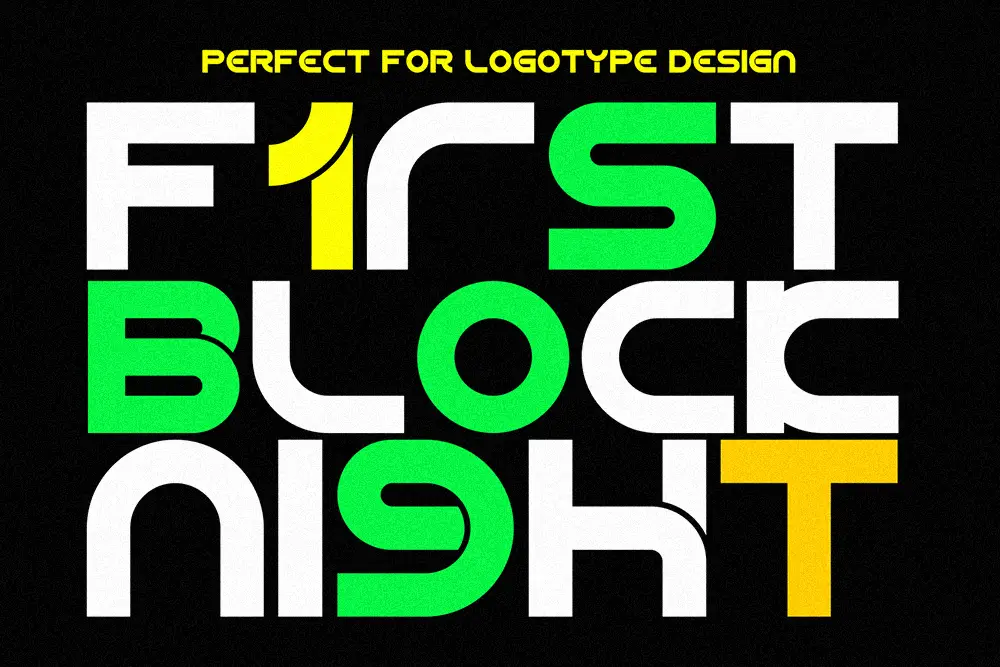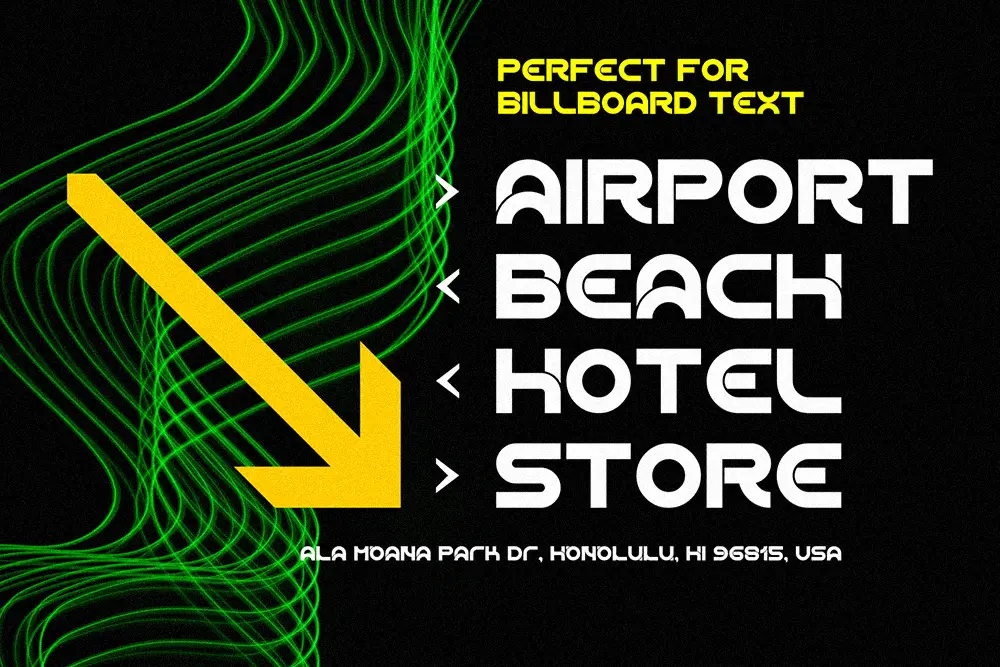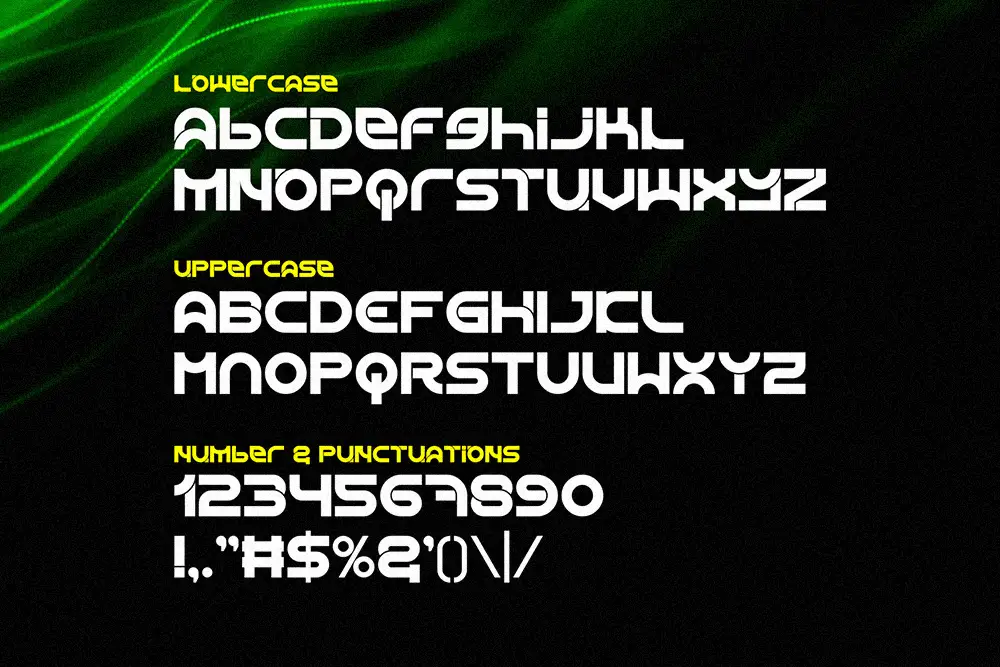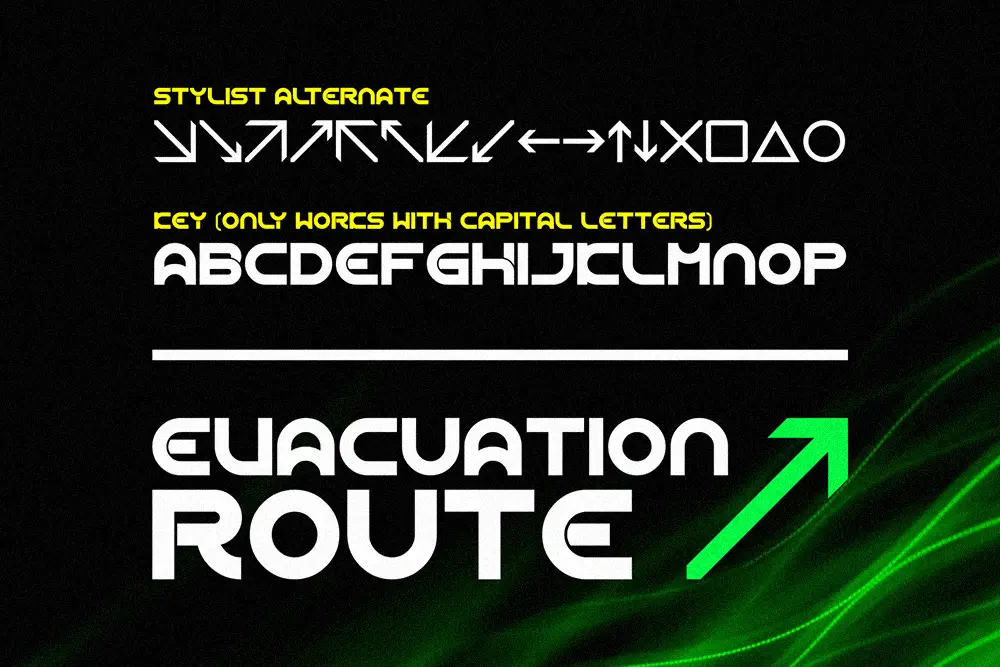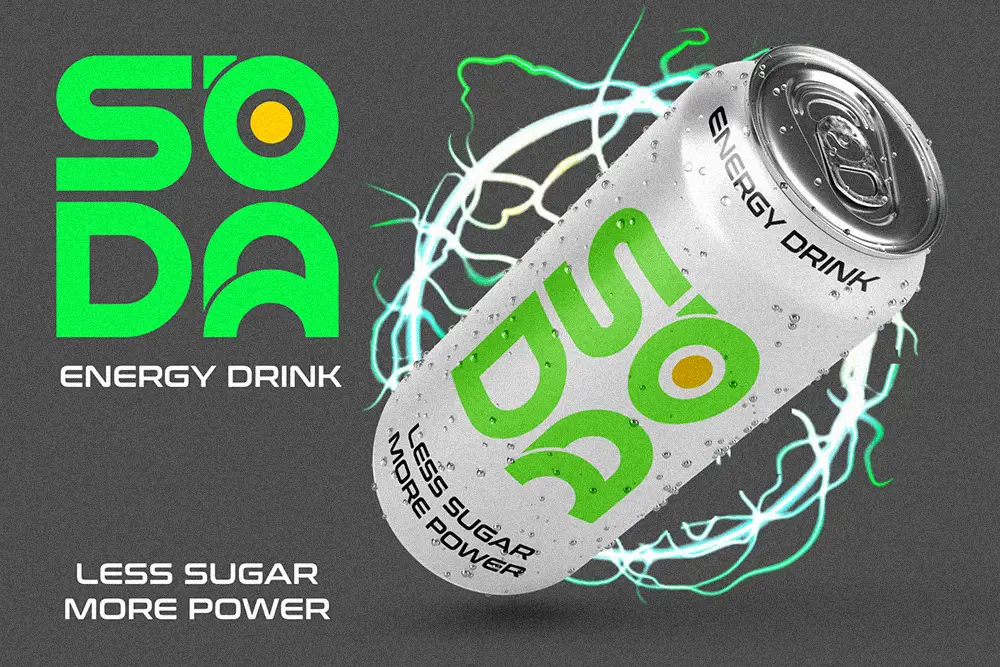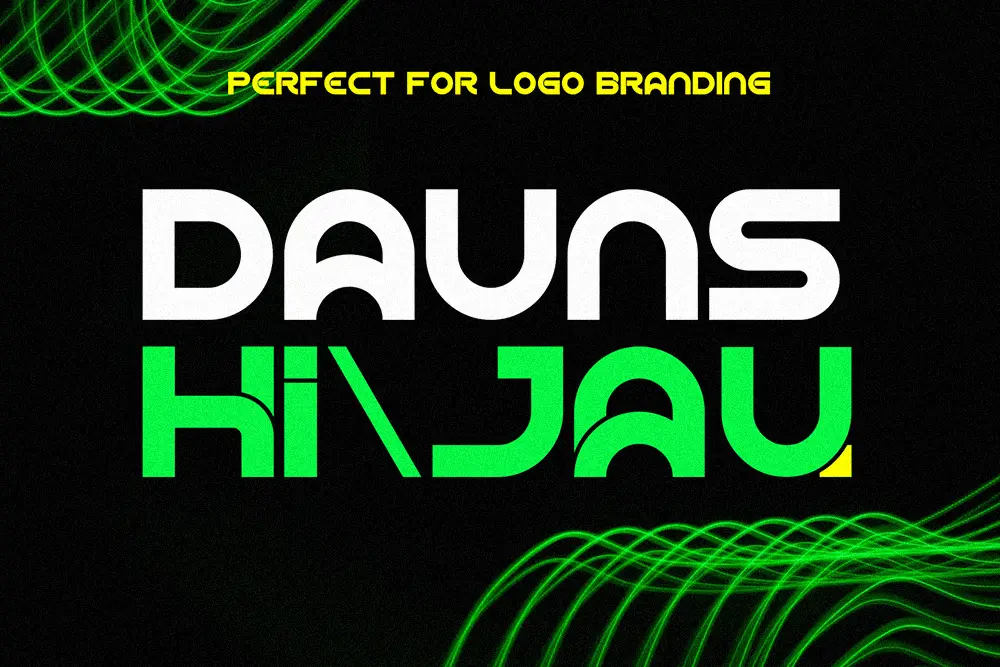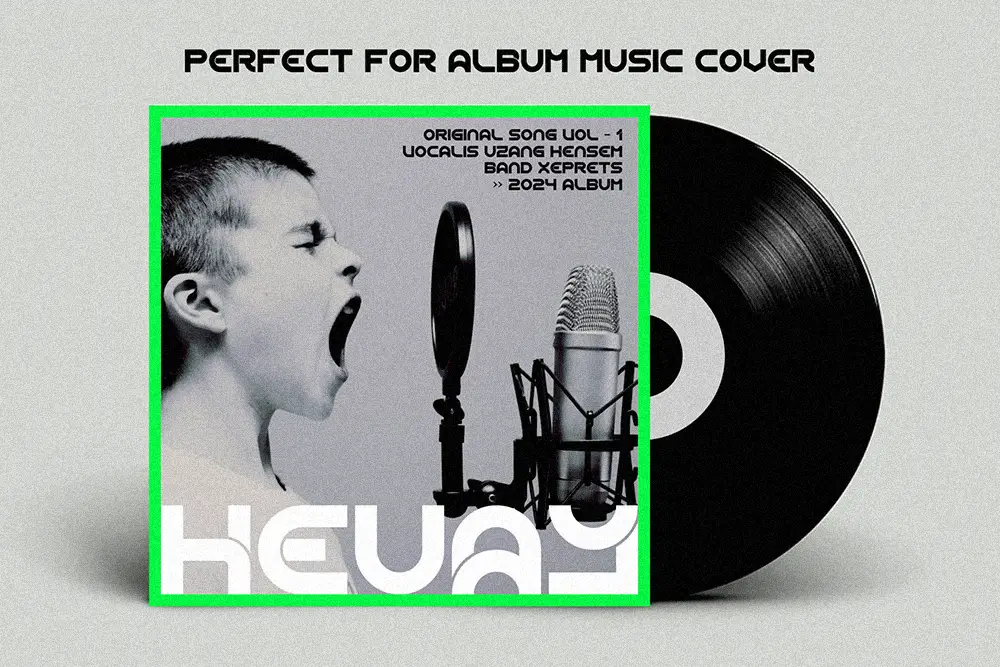
Tronical Elyps – Futuristic Techno Font for Modern Digital Design
Typography shapes the way we experience the future of design, and nothing captures modern innovation better than a futuristic techno font. Tronical Elyps – Futuristic Techno Font is crafted with bold geometric precision, smooth curves, and futuristic edges, making it perfect for logos, posters, branding, and digital interfaces.
This futuristic techno font doesn’t just look modern—it communicates the energy of technology, speed, and progress. Whether you’re building a tech startup identity, esports visuals, sci-fi posters, or futuristic packaging, Tronical Elyps ensures your design feels advanced and ready for the future.
Futuristic Techno Font with Bold Style
Tronical Elyps sets itself apart by blending clean geometry with techno-inspired innovation. Every stroke is calculated to give your typography a sense of movement and power. This futuristic techno font is ideal for projects that need a balance of sleekness and energy.
It includes uppercase and lowercase letters, plus stylistic alternates that allow you to experiment with unique letterforms. This flexibility gives designers endless options for creating bold futuristic logos or experimental poster layouts.
Key Features of Tronical Elyps – Futuristic Techno Font
Designers value fonts that combine creativity with practicality. Tronical Elyps delivers exactly that:
- Uppercase & Lowercase: Complete alphabet set for versatile designs
- Stylistic Alternates: Unique variations for creative experimentation
- Multilingual Support: Extended Latin coverage for global projects
- Futuristic Techno Style: Geometric design perfect for modern branding
- High Readability: Works well in both digital and print applications
Why Designers Love Tronical Elyps
Tronical Elyps has quickly become a designer favorite because it embodies the qualities of a premium futuristic techno font: it’s bold, modern, versatile, and professional.
Here’s why creatives love using it:
- Strong Identity: Perfect for tech logos and futuristic branding
- Versatile Usage: From esports overlays to sci-fi posters, it adapts beautifully
- Designer-Approved: Clean forms that look professional while staying innovative
Tronical Elyps for Logos and Branding
Building a future-ready brand requires typography that communicates innovation. Tronical Elyps is a futuristic techno font designed for logos that want to stand out in competitive markets. Its extended geometry makes wordmarks bold and impactful, while stylistic alternates add uniqueness.
Whether for a tech startup, software company, or esports team, Tronical Elyps ensures your brand identity feels cutting-edge.
Tronical Elyps for Posters and Headlines
Posters and headlines must grab attention instantly. Tronical Elyps thrives in these spaces. As a futuristic techno font, it brings energy and clarity to large-scale layouts, making your message impossible to ignore.
Its geometric construction makes it perfect for promotional graphics, album covers, or futuristic event branding.
Tronical Elyps in Digital Media
The digital era demands fonts that are both stylish and functional. Tronical Elyps, as a futuristic techno font, works flawlessly for website headers, YouTube thumbnails, and social media designs. Its sharp geometry adapts perfectly to screen-based projects, ensuring legibility while staying bold.
When combined with its stylistic alternates, you can create unique layouts that stand out in crowded digital spaces.
Pairing fonts is essential for professional design. Tronical Elyps works beautifully when combined with other techno-inspired typefaces. Try it with:
- Byte Sharp Futuristic Techno Font – a sharp futuristic font that amplifies Tronical Elyps’ geometric energy.
- Character Set: Uppercase, Lowercase, Numbers, Punctuation
- Stylistic Alternates: Yes
- Category: Futuristic Techno Font
- Best Uses: Logos, Posters, Branding, Esports, Digital Media
Why Tronical Elyps is the Futuristic Techno Font You Need
Typography is the foundation of futuristic design. Tronical Elyps captures the essence of modern innovation with its bold extended style, stylistic alternates, and multilingual versatility. As a futuristic techno font, it allows designers to build identities that look sharp, professional, and future-ready.